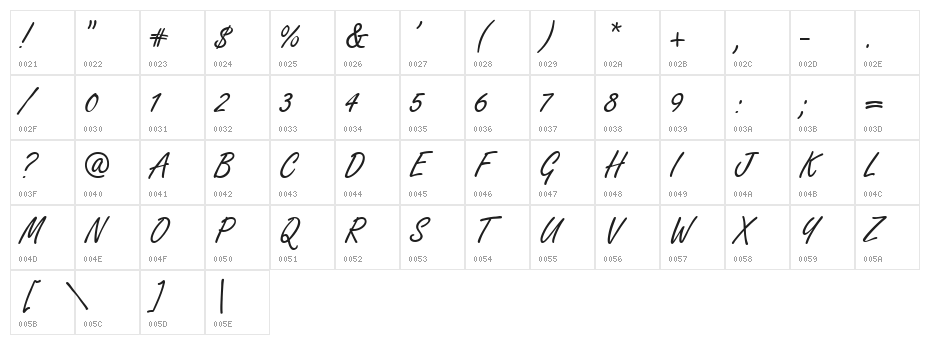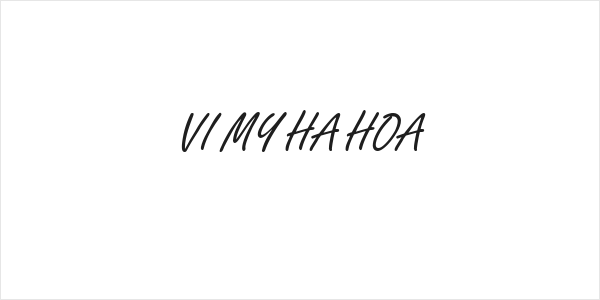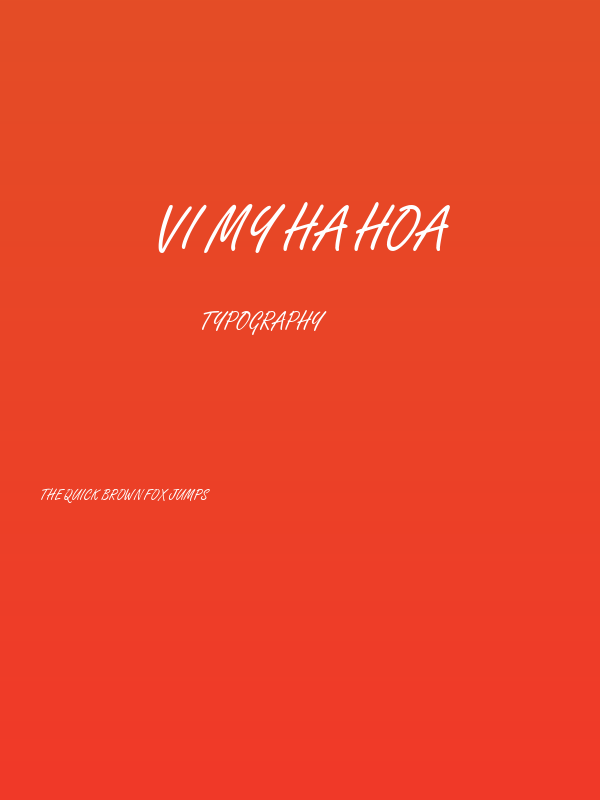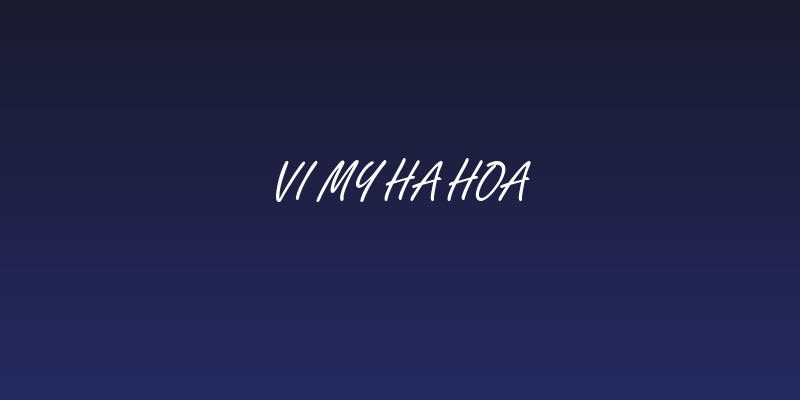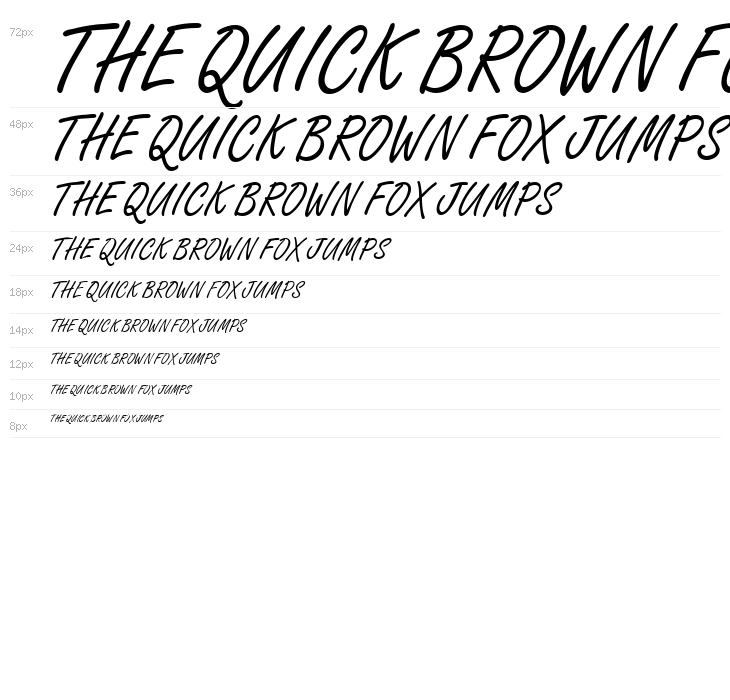
VI My Ha Hoa Font
VI My Ha Hoa Description
This font features a dynamic and fluid script style, characterized by its slanted, cursive letterforms that mimic natural handwriting. The strokes are smooth and continuous, with a consistent flow that enhances readability while maintaining an elegant appearance. The uppercase and lowercase letters are well-balanced, with a slight inclination that adds a sense of movement and energy. The numerals and special characters are crafted to match the overall aesthetic, ensuring a cohesive look across all text. This font's design is both stylish and versatile, making it suitable for a variety of creative applications.